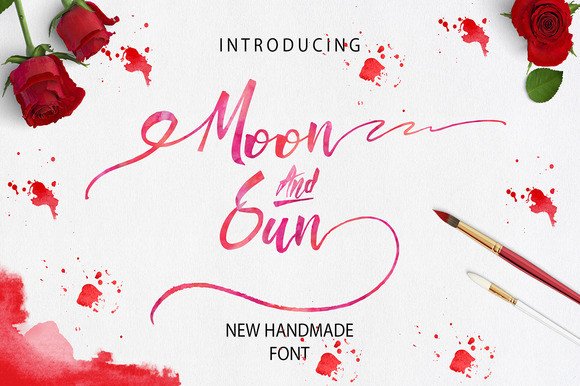
Journey through a world of celestial elegance with Moon & Sun Font, a script font that captures the ethereal beauty of the cosmos. Created by the talented Only The Originals, this font invites you to add a touch of cosmic wonder to your designs. Whether you're crafting invitations that sparkle like a starry night, greeting cards adorned with celestial motifs, or branding materials that leave a lasting impression, Moon & Sun Font is your perfect companion.
With its sweeping curves and graceful lines, Moon & Sun Font evokes a sense of awe and wonder. Each letter dances across the page, as if guided by the celestial forces above. The intricate details and delicate flourishes lend an air of sophistication and charm, making this font ideal for any project that demands a touch of elegance.
Step into a realm of creativity and let Moon & Sun Font guide you. Its versatility knows no bounds, allowing you to explore a multitude of design possibilities. Create business cards that command attention, quotes that inspire and uplift, posters that transport viewers to distant galaxies, and t-shirts that ignite conversations. The possibilities are endless, just like the vastness of the universe itself.
Moon & Sun Font is not just a collection of letters; it's an expression of artistry, a testament to the power of imagination. Let it ignite your creativity and take your designs to new heights. Embrace the celestial allure of Moon & Sun Font and let your projects shine brighter than a thousand stars.